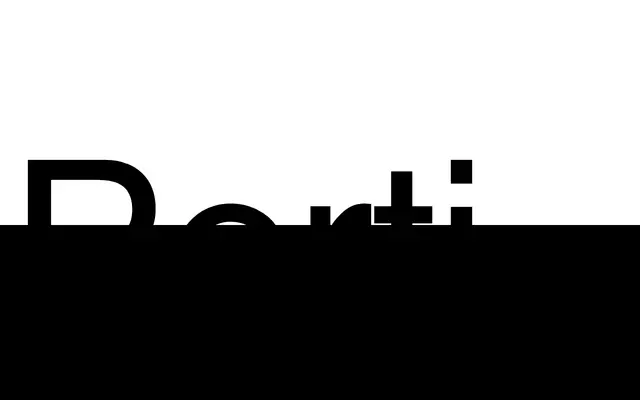
Perti
A rounded slab-serif with no stroke contrast, six weights and uni-width proportions, designed by Ondrej Jób for versatile industrial use.
Six weights from Thin to Heavy share consistent character widths across the range, a feature the foundry labels uni-width non-monospace. The design has no stroke contrast and rounded terminals throughout, giving it a firm, mechanical quality without the rigidity of a purely geometric slab. A stylistic set swaps to single-storey a and g, and the character set covers over 100 languages across Basic and Extended Latin with proportional and tabular lining figures included.
The foundry explicitly describes Perti as an industrial, rounded slab-serif with no stroke contrast and rounded terminals, placing it firmly in the slab-serif category with a rounded subcategory.